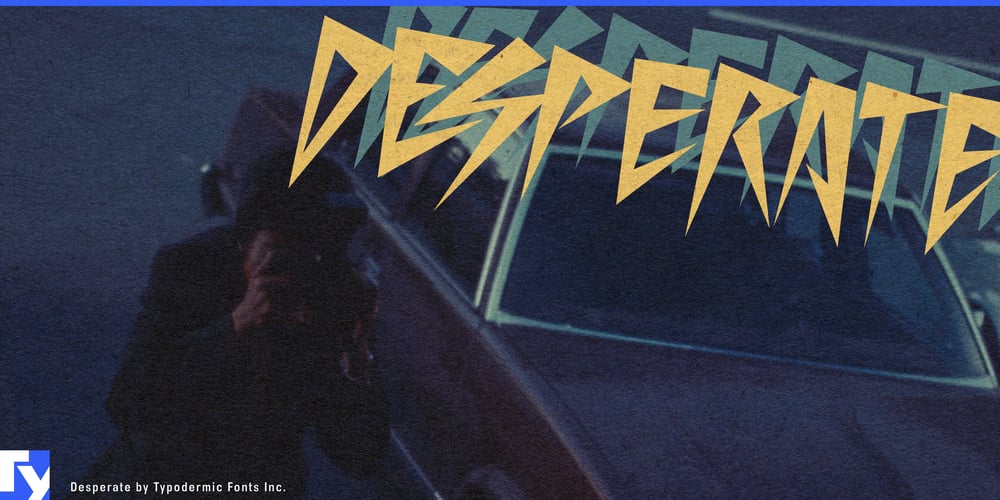
Desperate Font Family was designed by Ray Larabie and published by Typodermic. Desperate contains 1 styles and family package options. Desperate: The typographic rebellion your designs have been waiting for. This Typodermic Fonts creation isn’t just a font—it’s a manifesto, a battle cry, a middle finger to the status quo of safe, predictable typography.Born from the raw energy of punk rock and the avant-garde spirit of new wave, Desperate refuses to color inside the lines. Its interlocking shapes create a visual rhythm as unpredictable as a mosh pit, while maintaining a cohesive style that’s pure attitude. But Desperate isn’t content with mere visual anarchy. Thanks to OpenType technology, it unleashes over 200 wild ligatures, transforming ordinary letter combinations into extraordinary acts of typographic defiance. Each word becomes a unique piece of art, a statement of individuality in a world of conformity.Imagine your message screaming from gig posters, snarling across album covers, or disrupting corporate communications with a punk rock sneer. Desperate doesn’t just deliver text—it delivers an aggressive, hard-hitting style that demands to be heard. It’s the typographic equivalent of a power chord, resonating long after the reader has moved on. Desperate speaks the language of rebellion fluently, supporting a vast array of Latin-based European writing systems. From the anarchist squats of Berlin to the underground clubs of Zagreb, your message will retain its raw power across linguistic borders. This isn’t a font for the faint of heart. It’s for designers who dare to push boundaries, for brands that refuse to blend in, for messages that need to cut through the noise. Desperate is more than a typeface—it’s a creative revolution waiting to happen.So, are you ready to join the typographic uprising? Embrace Desperate and watch as your designs break free from the constraints of conventional typography. In a world where playing it safe is the norm, Desperate is your ticket to standing out, speaking up, and making your mark.Because some fonts whisper, some fonts speak, but Desperate? Desperate screams. And in a world full of noise, sometimes screaming is the only way to be heard.